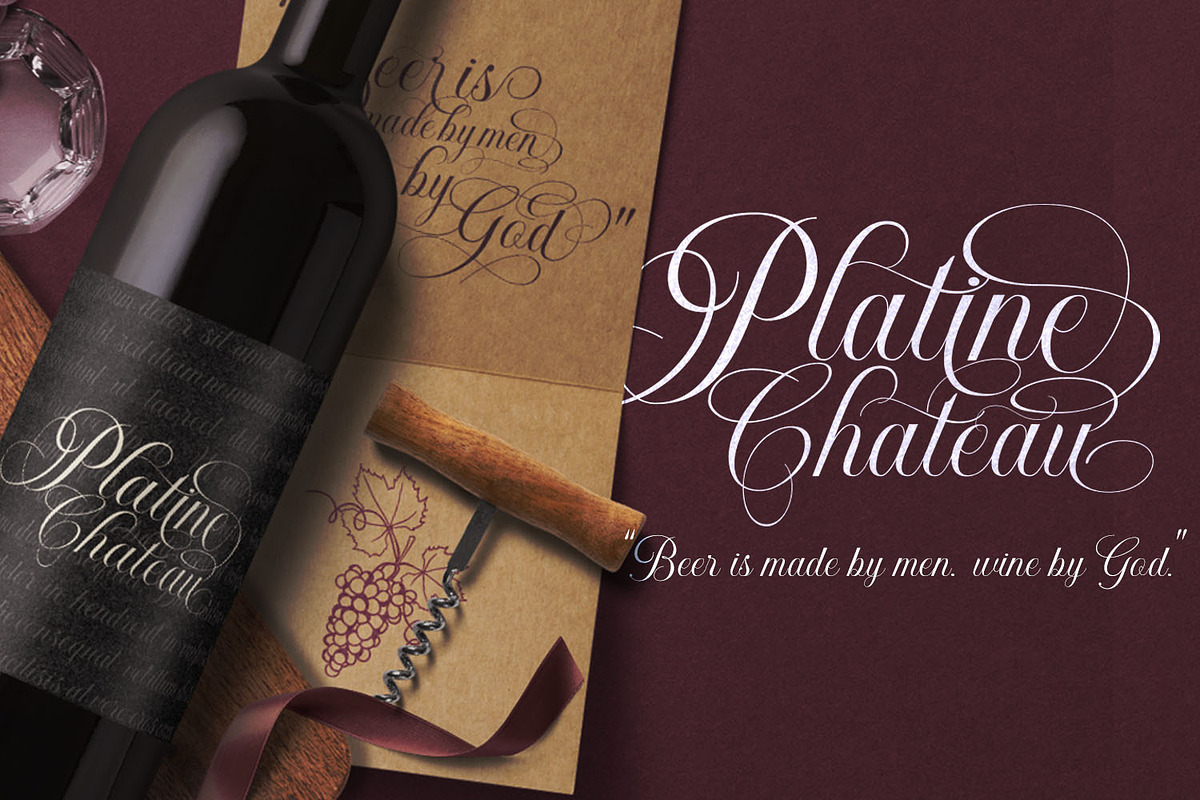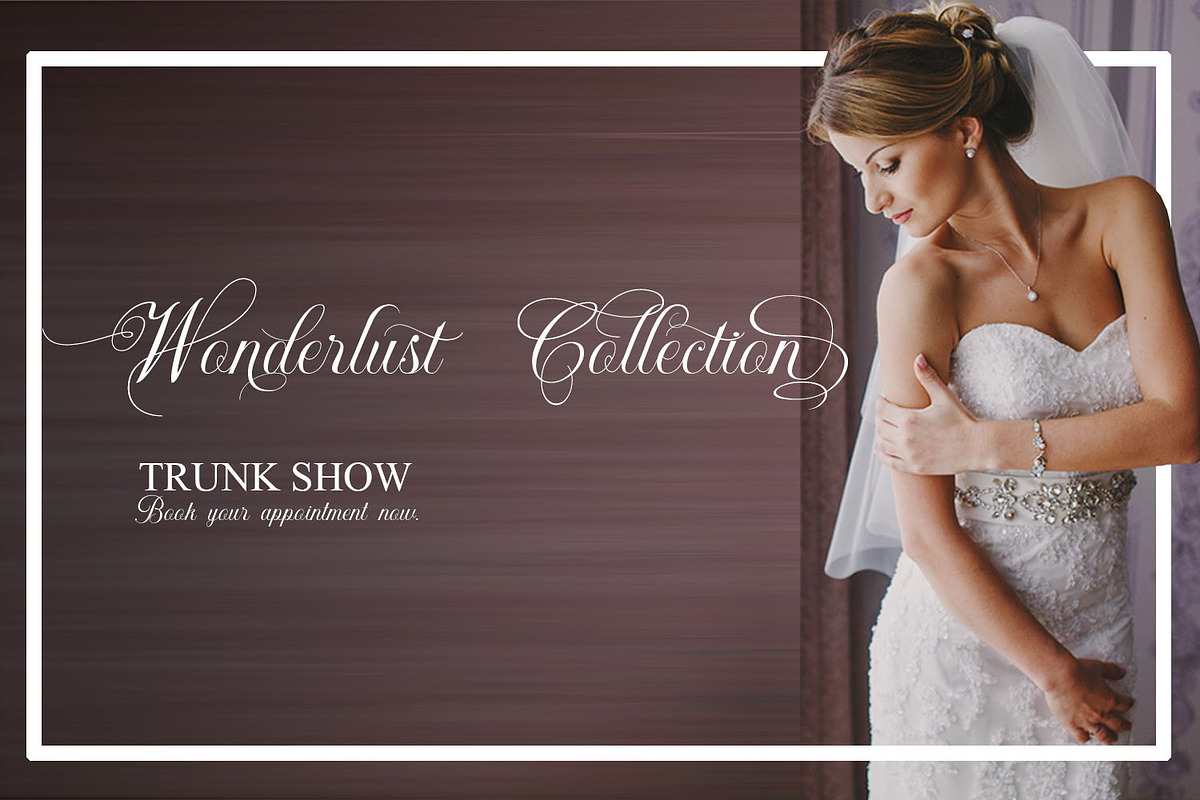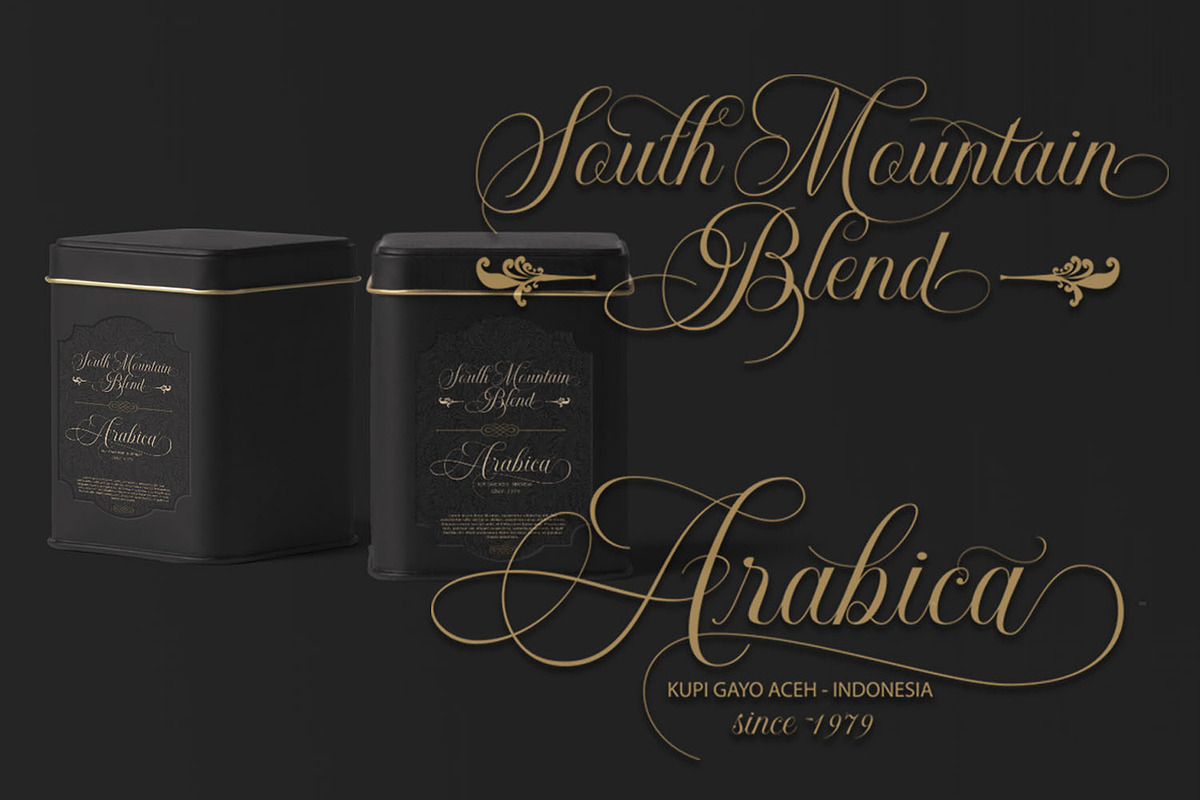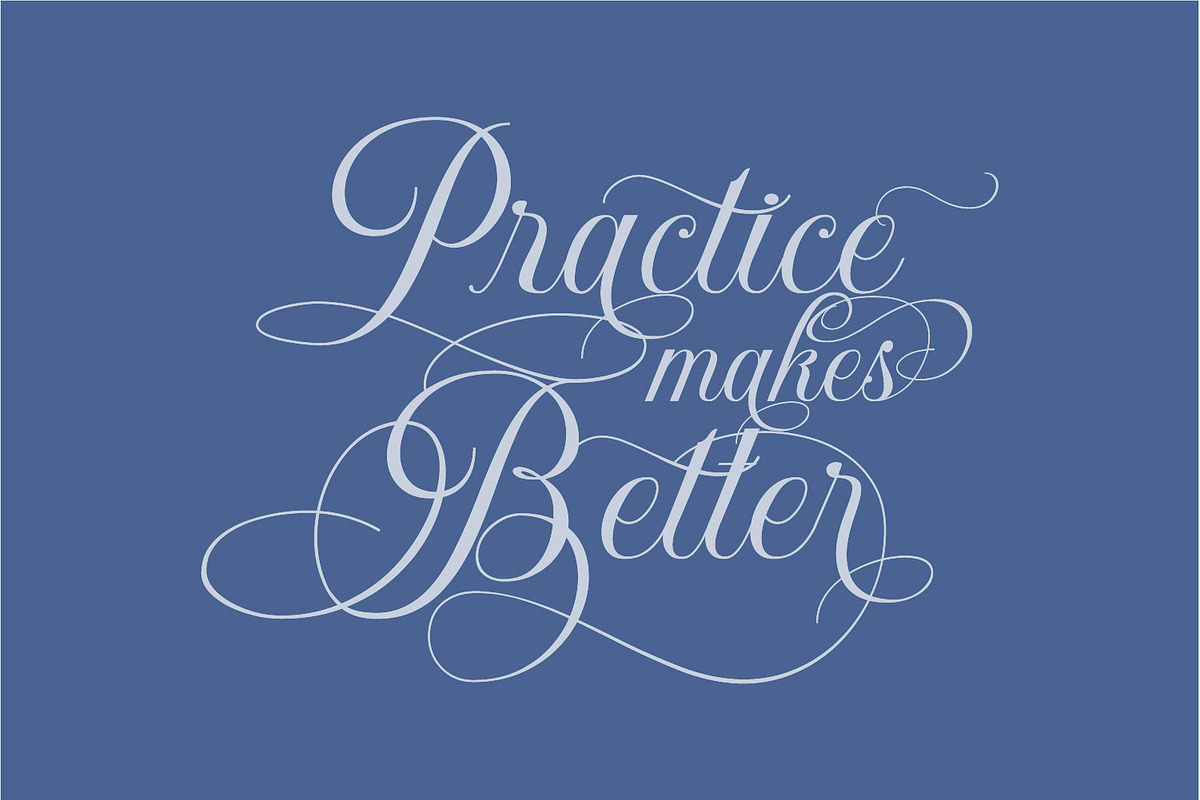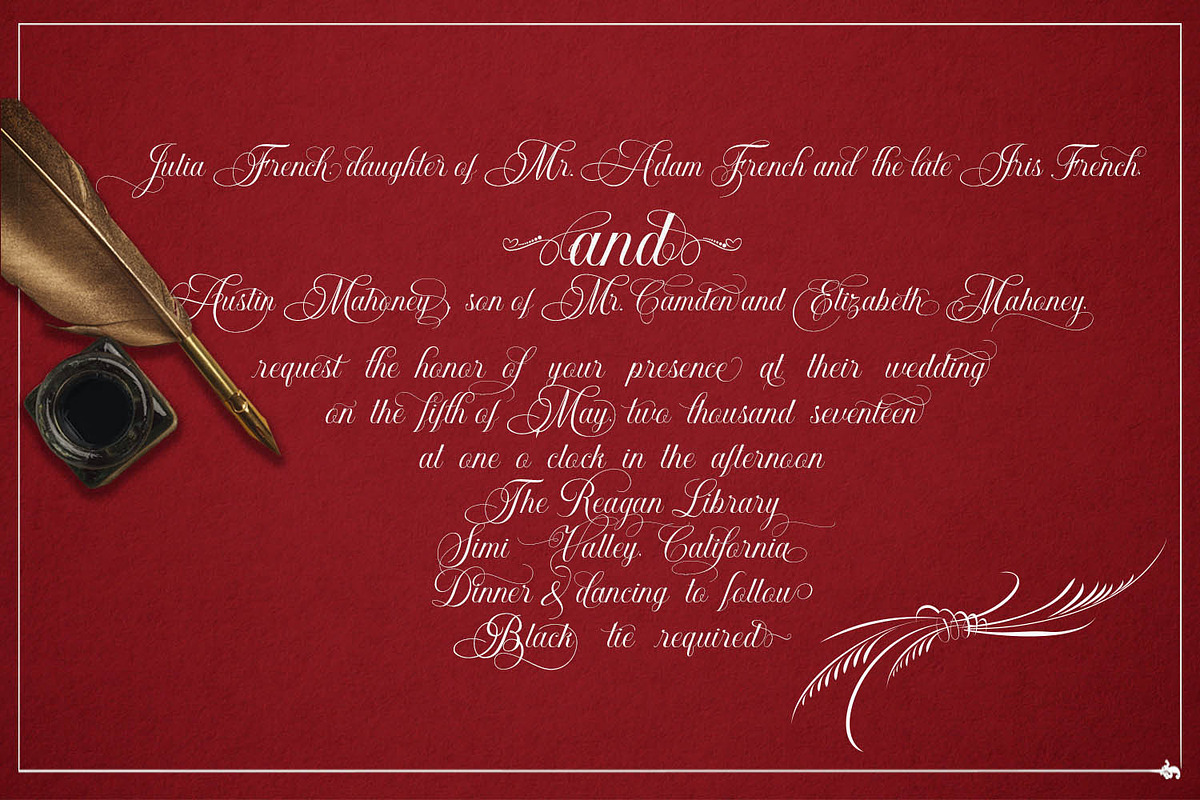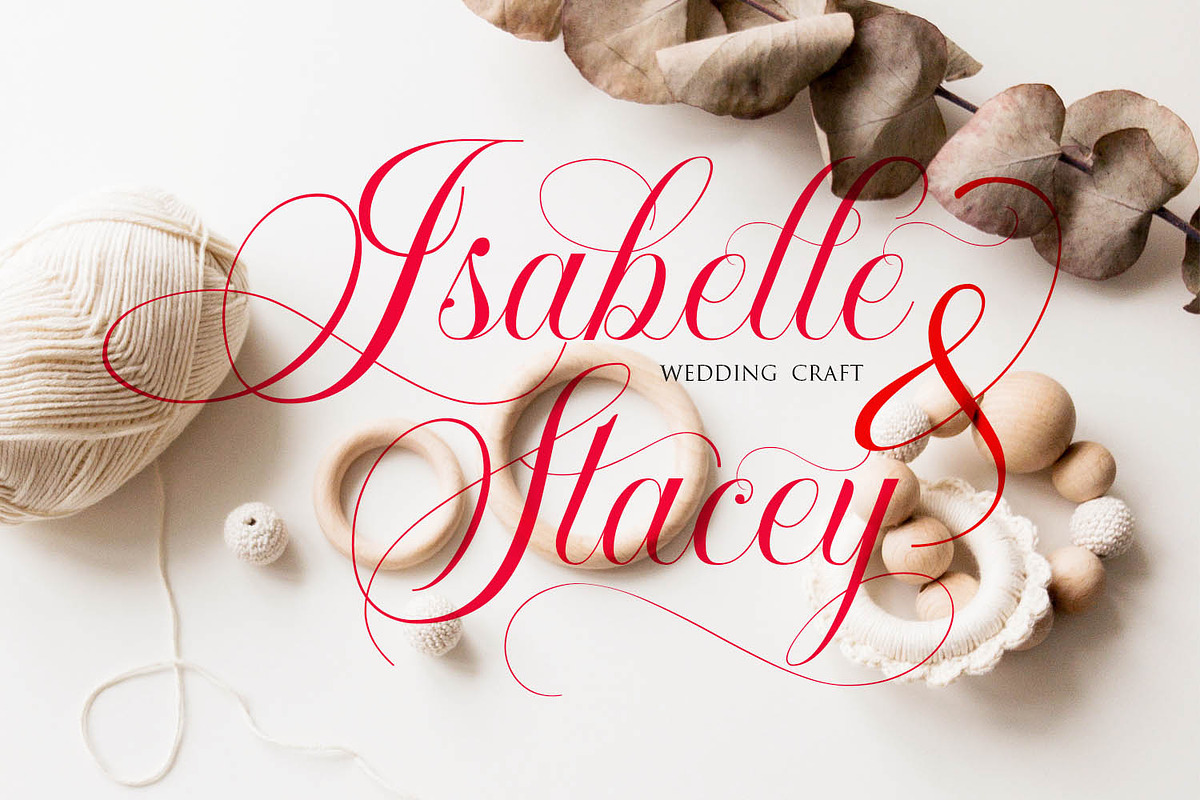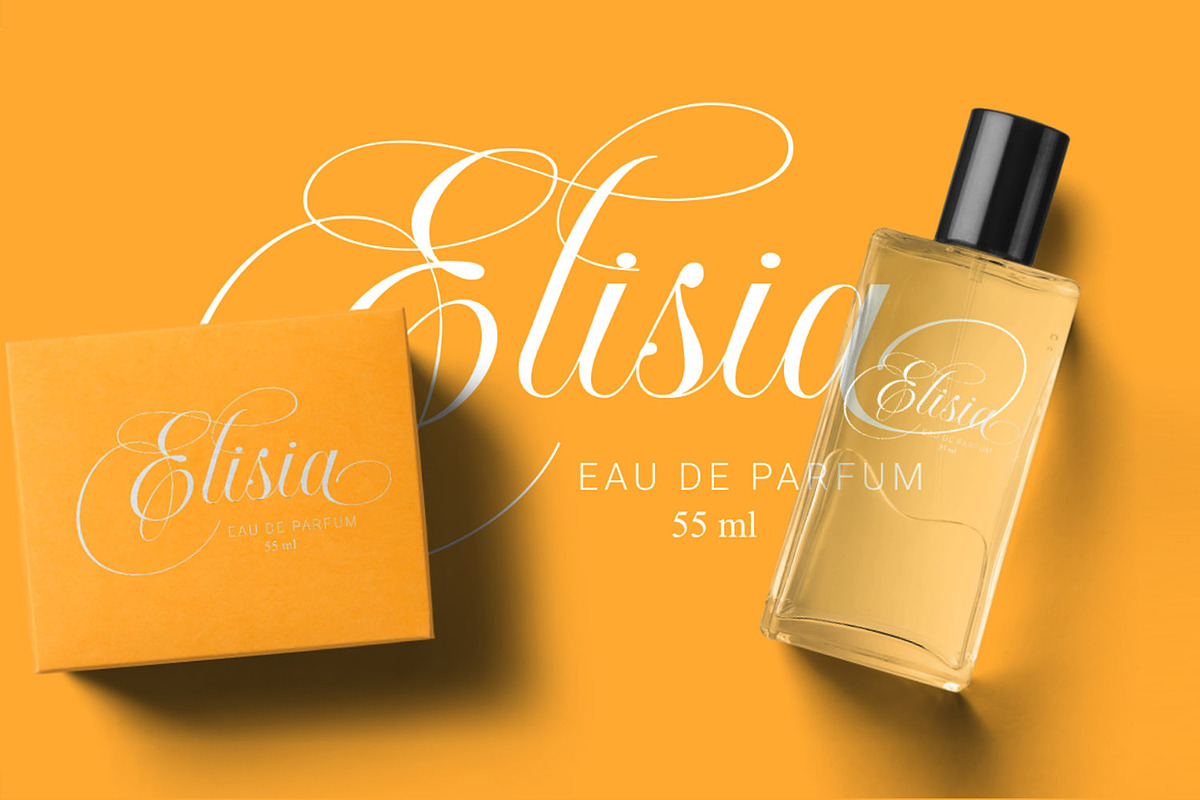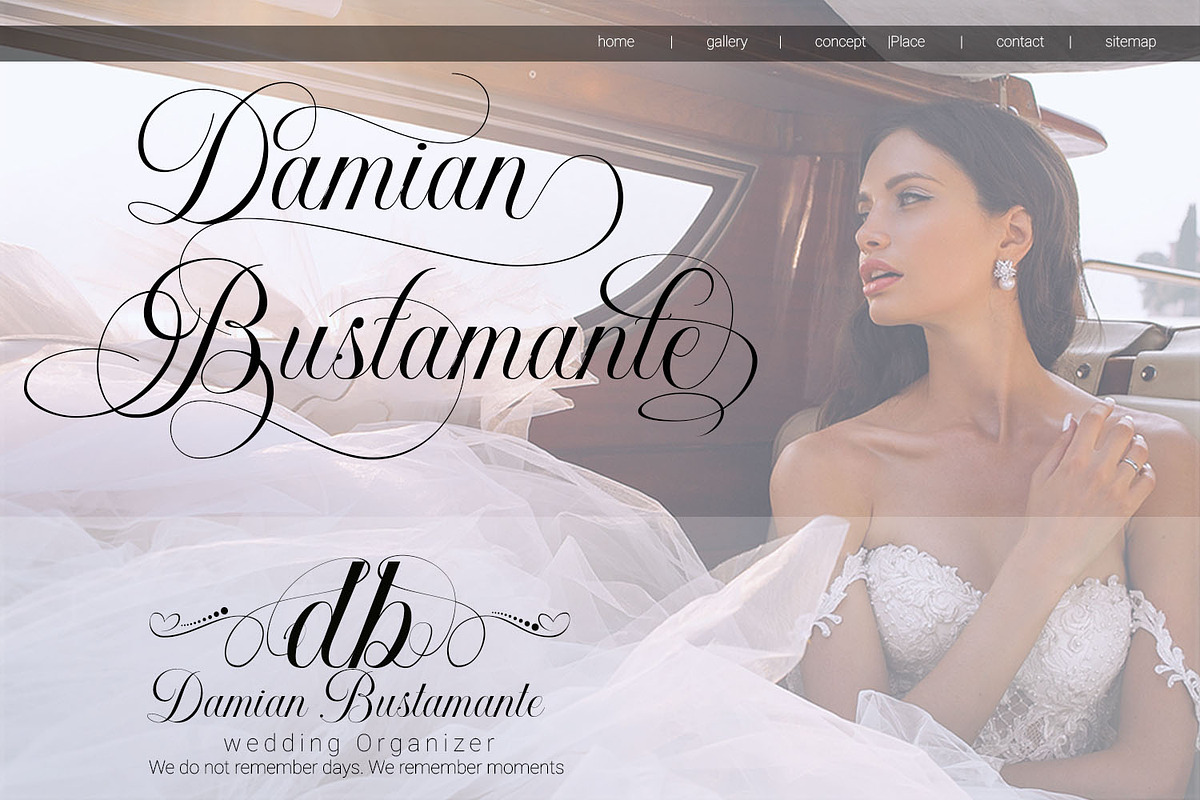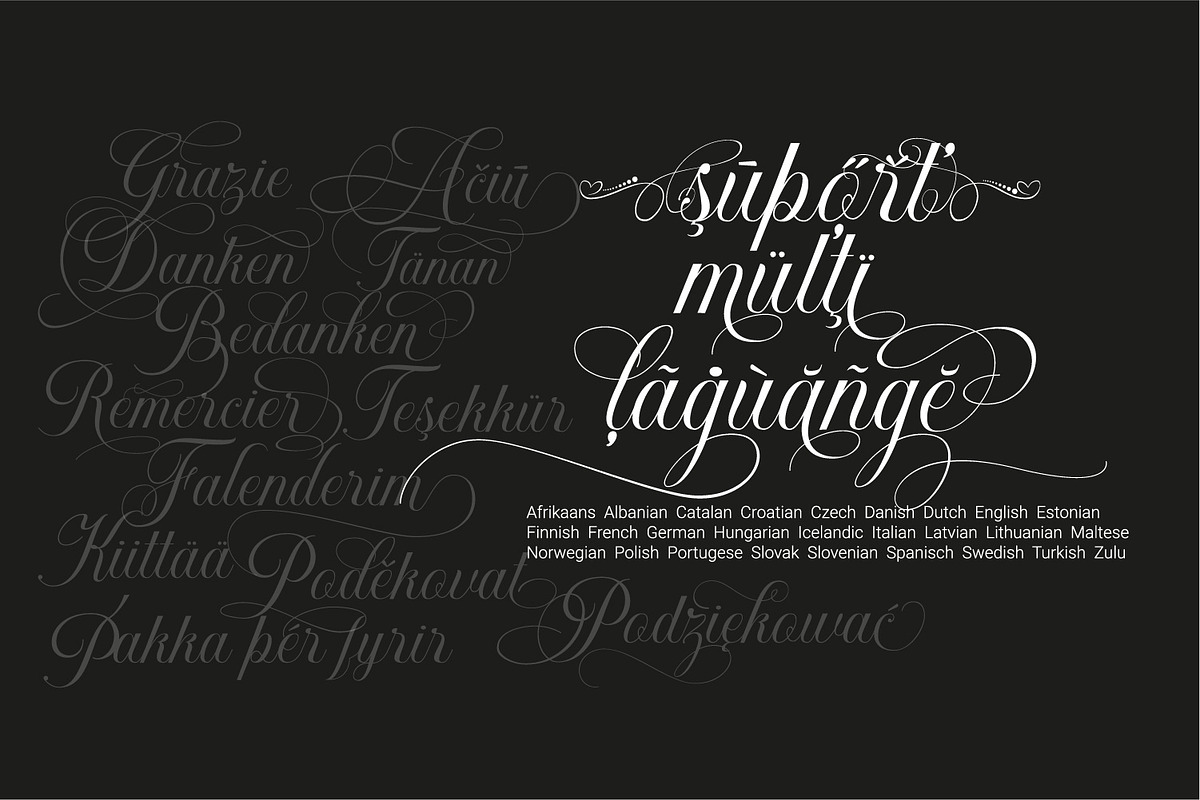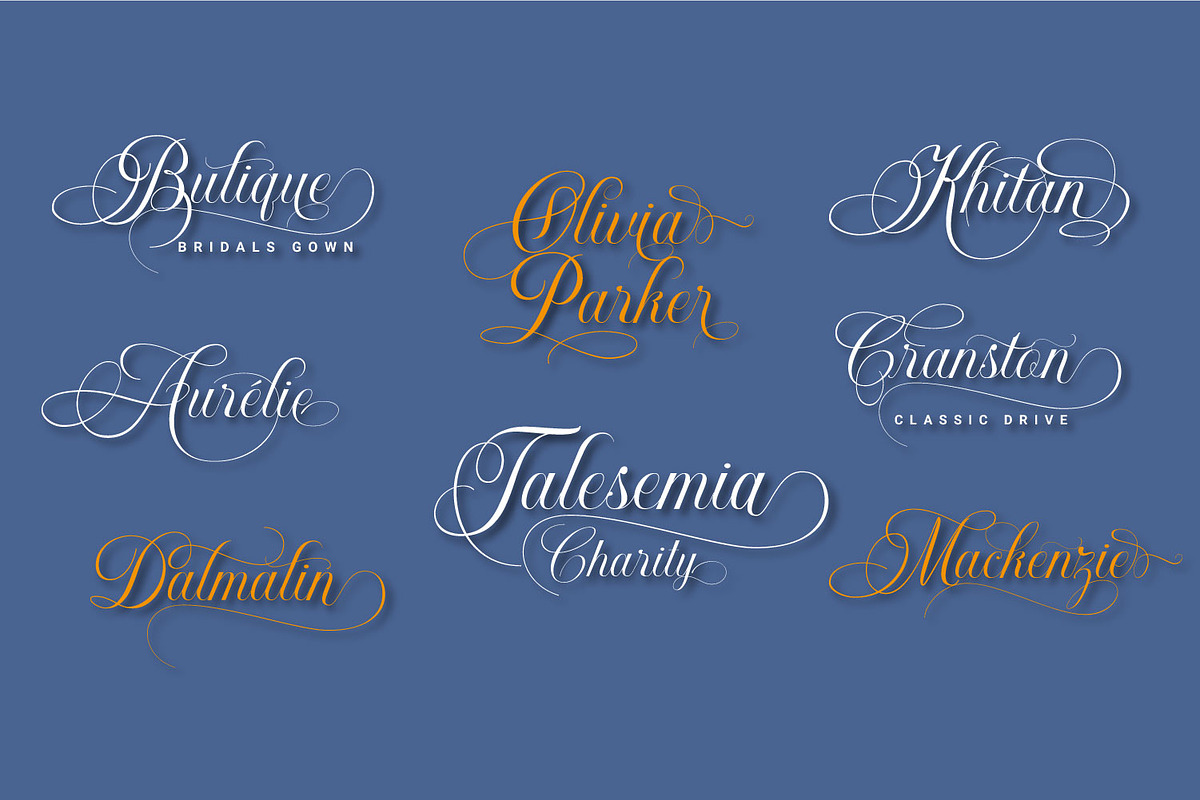
Khatija Calligraphy
Khatija Calligraphy is a beautiful calligraphy font in base style of penmanship with a modern look, an eclectic concept by paying attention to the beautiful choice models. This fonts consist of 2,484 letters ready to use. To make it easier for you to use it, we utilize the access all alternates feature so that you only need to type and then select one of the letters then the alternative letters will appear automatically.
We also use the stylistic set selection feature from SS01 – SS20, because we made a very unique alternate pair, alternate 1 paired with alternate 2, alternate 3 paired with alternate 4. We matched the alternate pair’s kernings perfectly.
For wedding themes and elegant product brands, believe it.. this font is the perfect choice, because we also prepare a ligature that raises flower ornaments to complement your design